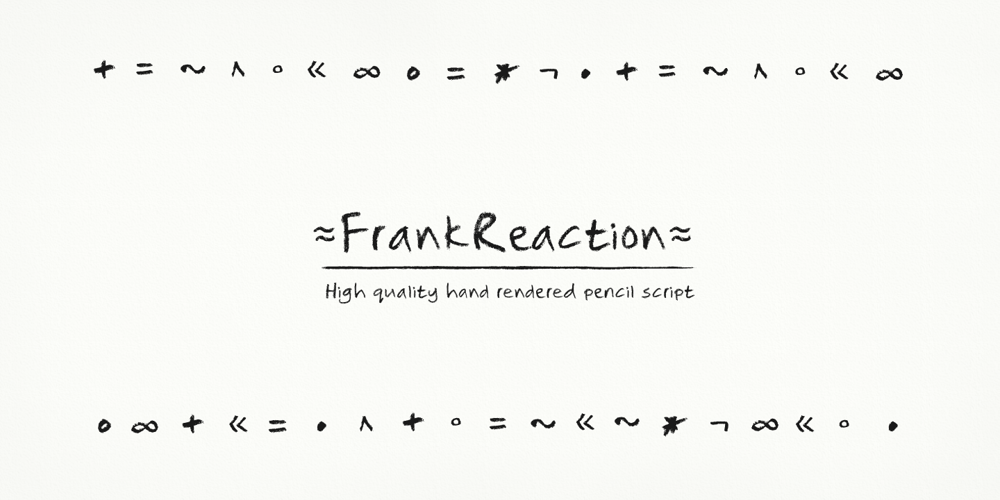
Frank Reaction
Frank Reaction font
Frank Reaction Font Family was designed by Will Stewart and published by Will Stewart. Frank Reaction contains 2 styles and family package options. A high quality hand rendered pencil script that includes a variety of contextual alternates to ensure the best handwritten look. Frank Reaction works brilliantly when used for both display and body copy and it is available for both print and web application. Use Frank Reaction to give your work personality and life.